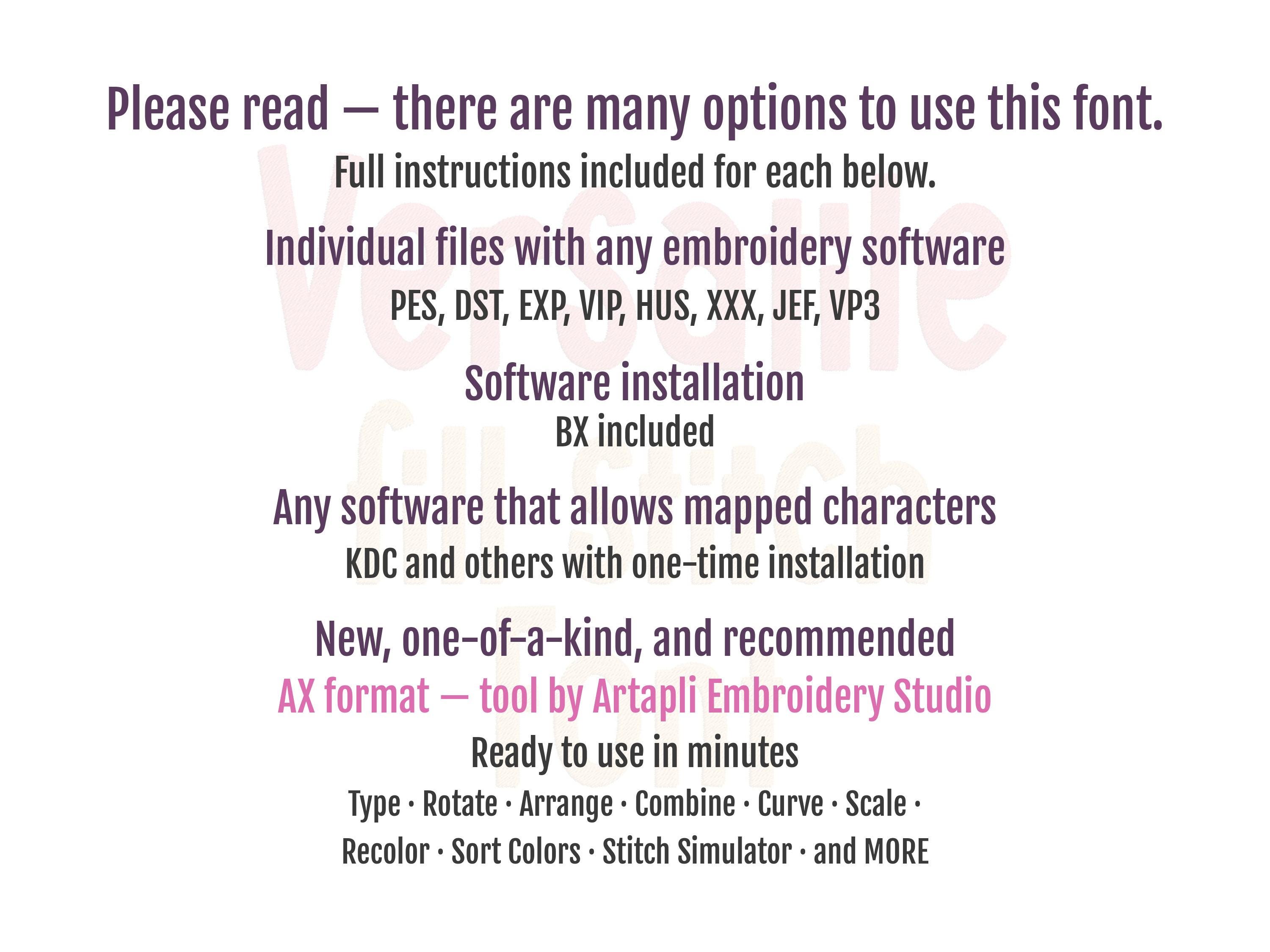
Versatile fill stitch Font Steve kids alphabet monogram Bold Font letters numbers machine embroidery designs many sizes 1.6 up to 5.2 inches
Whole alphabet A-Z uppercase and lowercase letters, numbers 0-9, ampersand, and hashtag.